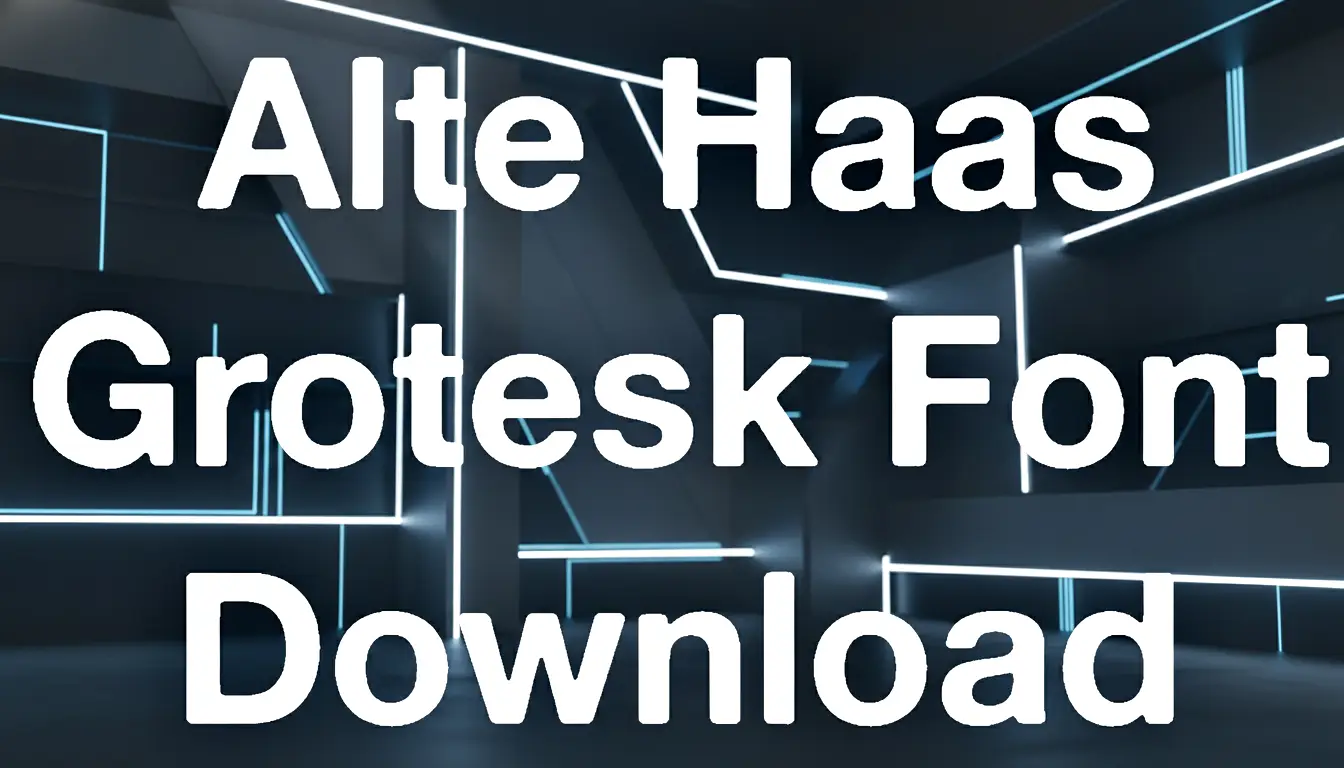
Yann Le Coroller, a French animator and UI designer, created Alte Haas Grotesk in 2007 as a popular neo-grotesque sans-serif font. He built it as a “freebie interpretation” of Helvetica (Neue Haas Grotesk), giving it uniquely soft, rounded corners to imitate Helvetica printed in an old Swiss design book.
Alte Haas Grotesk
Alte Haas Grotesk is a Western font made by Yann Le Coroller (2007).
- Designer: Yann Le Coroller
- Year: 2007 (from the copyright line in the font)
- Font styles: 2 (Regular and Bold)
- Glyphs: 268 in the Regular style